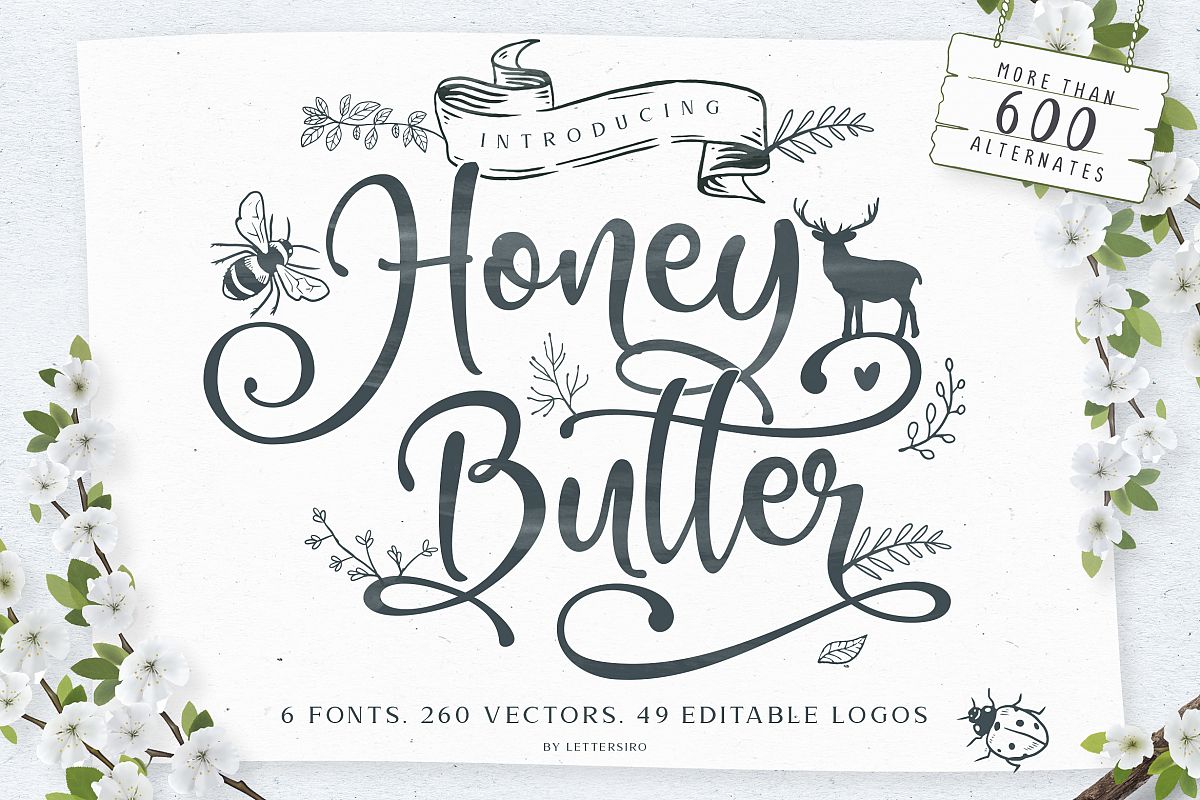
Honey Butter Font Trio & 260 Vectors
This is our newest product called Honey Butter . This is a trio font that can be paired each other.
Honey Butter comes with Honey Butter script (Clean &Rough) that contain more than 600 alternate character, Honey Butter sans (Clean &Rough), and Honey Butter serif (Clean &Rough).
Honey Butter is really great font for logo, blog/web headline,
clothing, invitation, poster, cafe/resto sign, and many others.
We also make 260 vectors for this font, so you can create many many designs for your projects.
• Honey Butter Script Clean with over 600 alternate (OTF) - Alternate contains stylistic, swash, stylistic set ss01 - ss13 , and ligatures
• Multilingual support - spread your message globally AÀÁÂÃÄÅCÇDÐEÈÉÊËIÌÍÎÏNÑOØÒÓÔÕÖUÙÜÚÛWYÝŸÆßÞþ